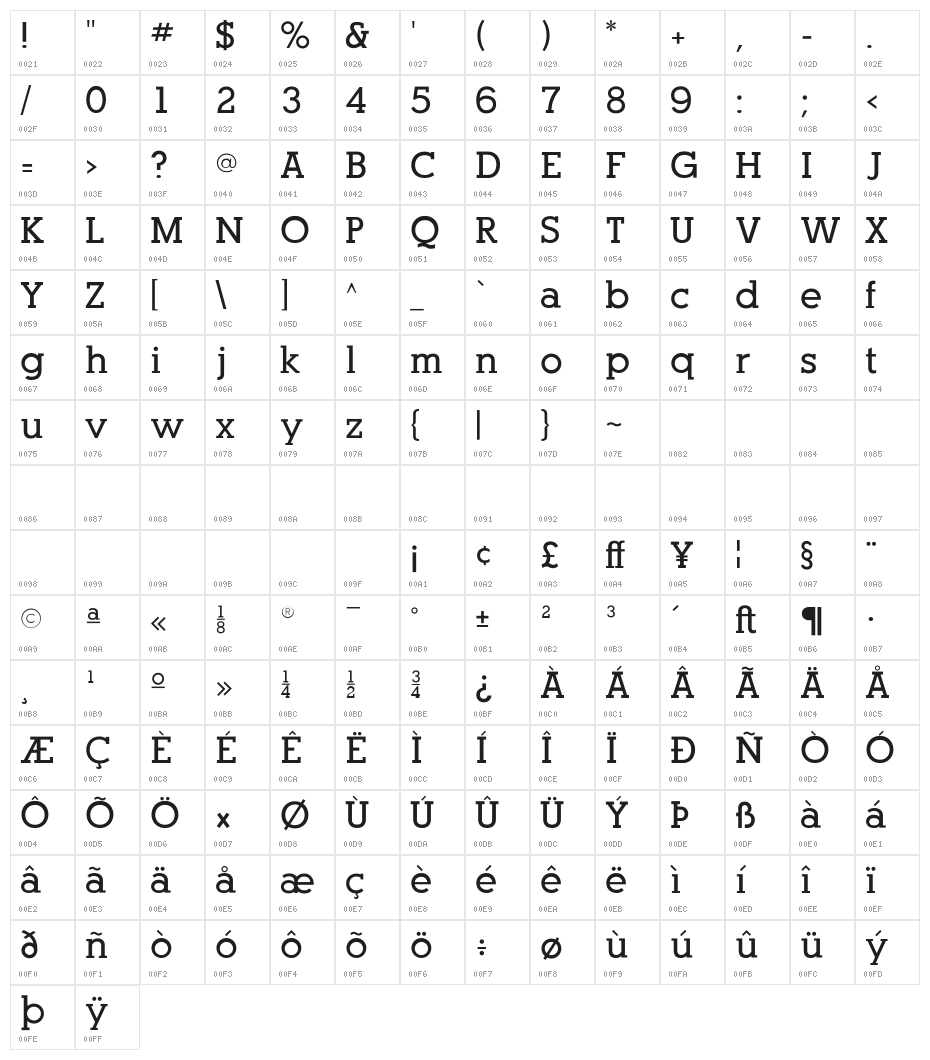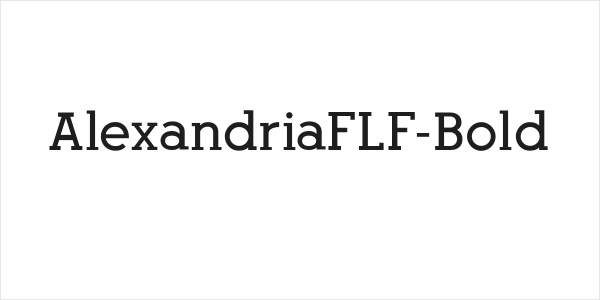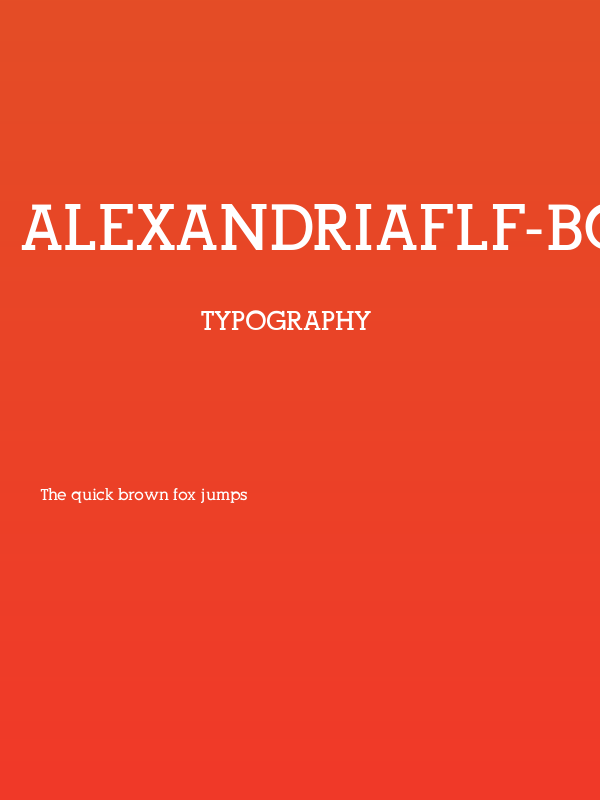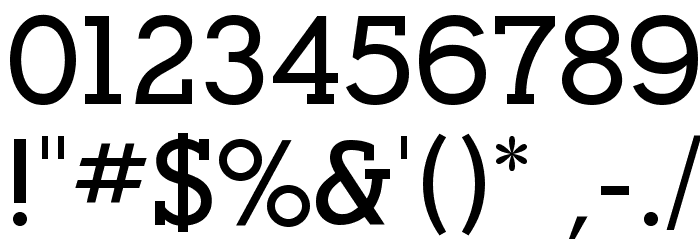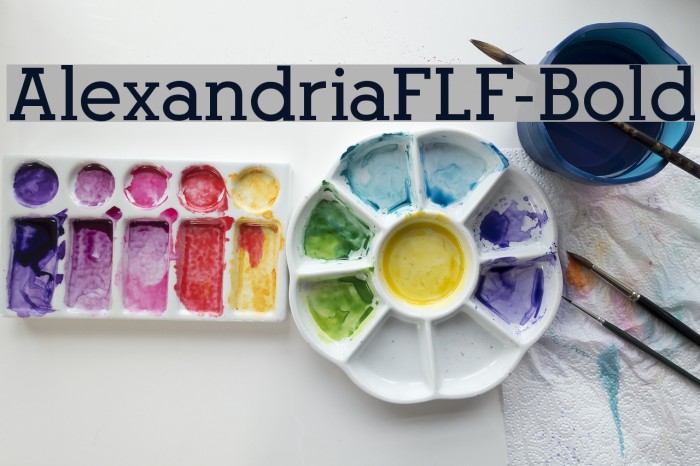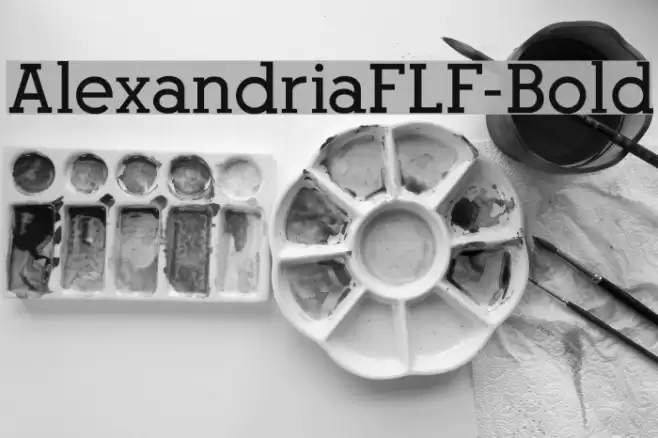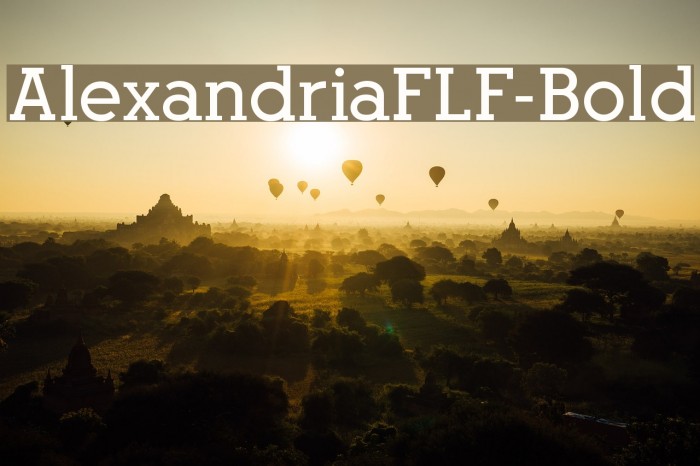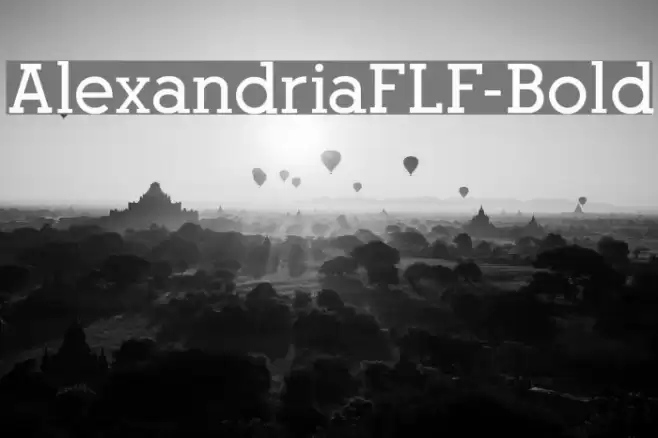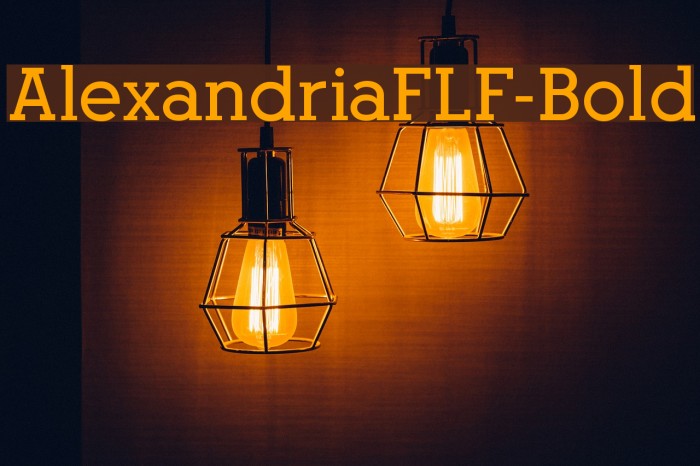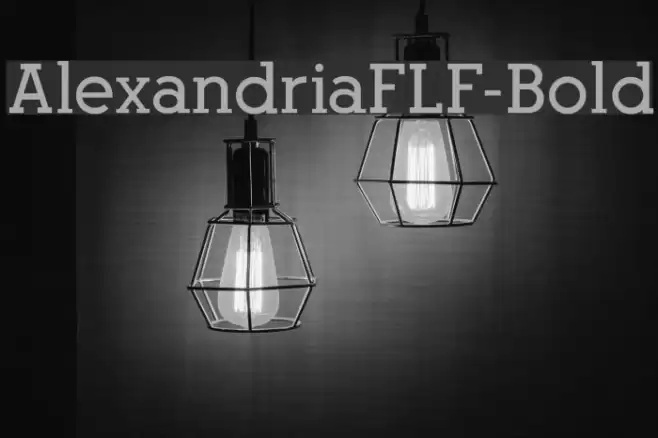
AlexandriaFLF-Bold Font
AlexandriaFLF-Bold Description
This font features a bold and robust design with a classic serif style. The characters are well-defined, with strong vertical lines and subtle curves that give it a timeless and authoritative appearance. The uppercase letters are tall and commanding, while the lowercase letters maintain a consistent and harmonious flow. The numerals are clear and easy to read, making them suitable for various applications. The special characters are distinct and integrate seamlessly with the rest of the font, ensuring versatility in design projects.
| Overall Style | Classic |
| Use Case | Headlines, Body text, Logos |
| Proposed Projects | Ideal for book covers, editorial headlines, branding materials, and formal invitations. |